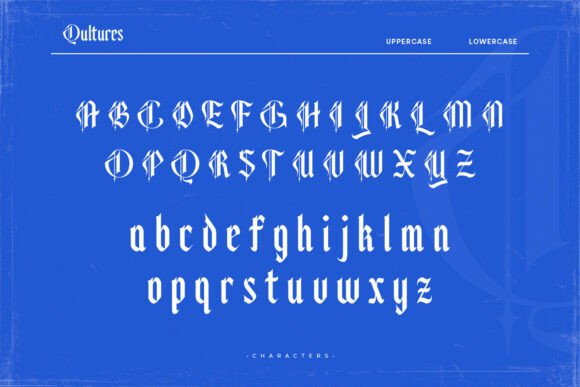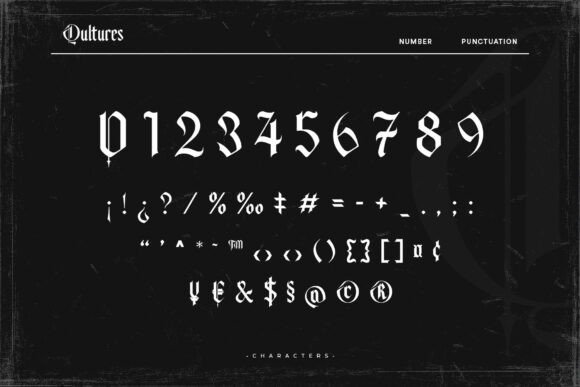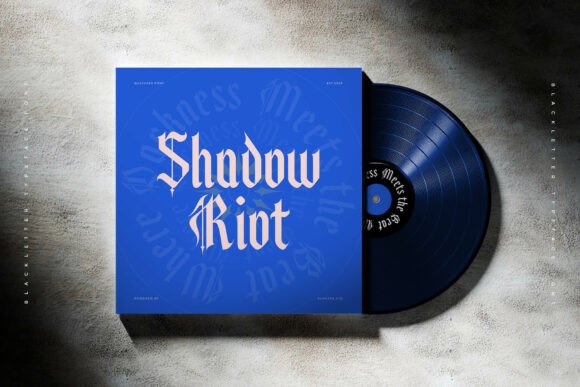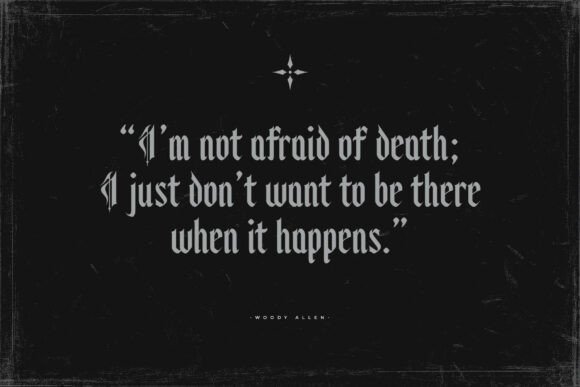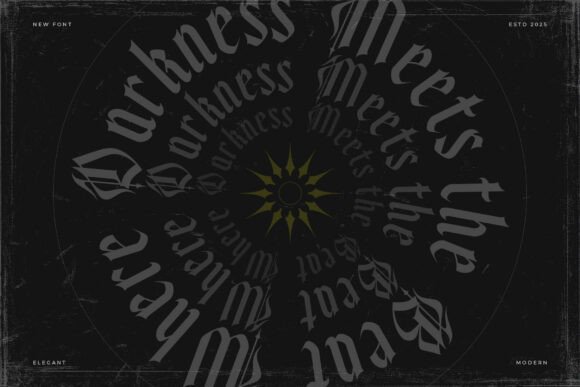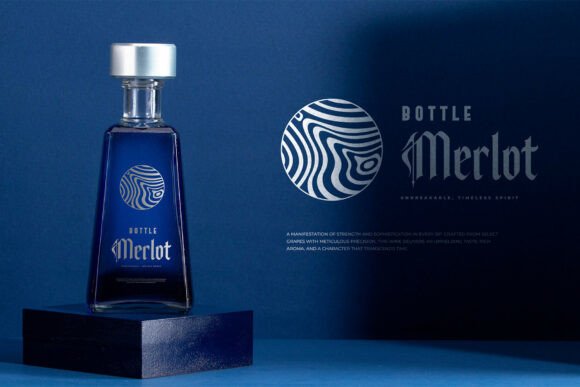
Introduction to Qultures Font Font
Fonts play a crucial role in design, and the Qultures Font font is a typeface that brings both character and versatility to any project. Whether you’re working on a branding project, a website, or a print design, the Qultures Font font offers a unique style that can elevate your work.
Qultures is a bold and dramatic blackletter typeface inspired by Gothic traditions and medieval artistry.
This font is perfect for projects that demand powerful character and strong visual impact, such as tattoos, rock band posters, merchandise, logos, and dark-themed branding Qultures delivers an authentic old-world feel with a modern edge, combining heavy strokes and sharp details.
Key Features of Qultures Font Font
Why Choose Qultures Font Font?
The Qultures Font font is more than just a typeface – it’s a design tool that helps you communicate your message with style and clarity. Its unique character set and versatile design make it suitable for a wide range of applications, from elegant invitations to bold headlines.
With its carefully crafted letterforms and balanced proportions, the Qultures Font font ensures readability and visual appeal across all mediums.
What makes Qultures Font font special?
The Qultures Font font stands out with its unique design, exceptional readability, and versatility across various design applications.